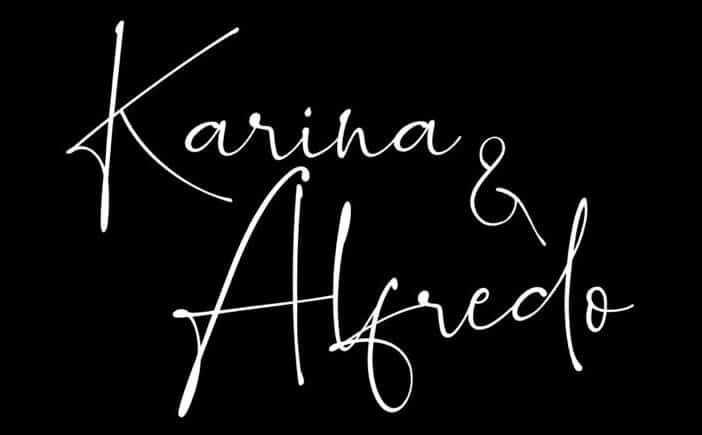
Romantically – a new modern & fresh script with a stylish handwritten and script style make this font looks natural, classy, natural and perfect for any awesome projects that need handwriting taste.